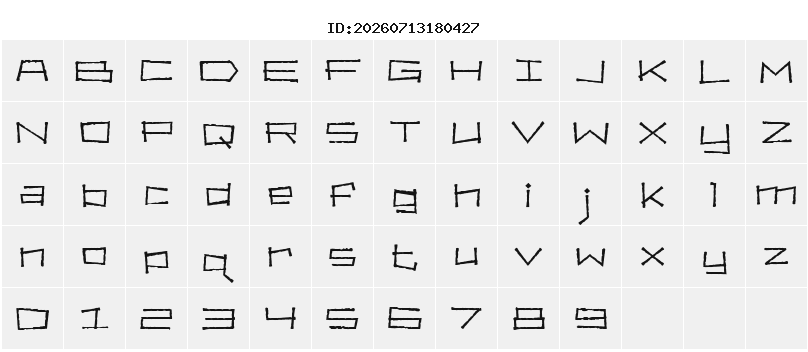
Bahama Slim Preview
• Font Name: Bahama Slim
• Full Font Name: Bahama Slim
• Designer: Stuart Sandler
• Manufacturer: Font Diner
About Bahama Slim.ttf
Bahama Slim.ttf is a modern, elegant sans-serif font designed for ultimate readability and visual harmony. Perfect for branding, headlines, web design, and print materials.